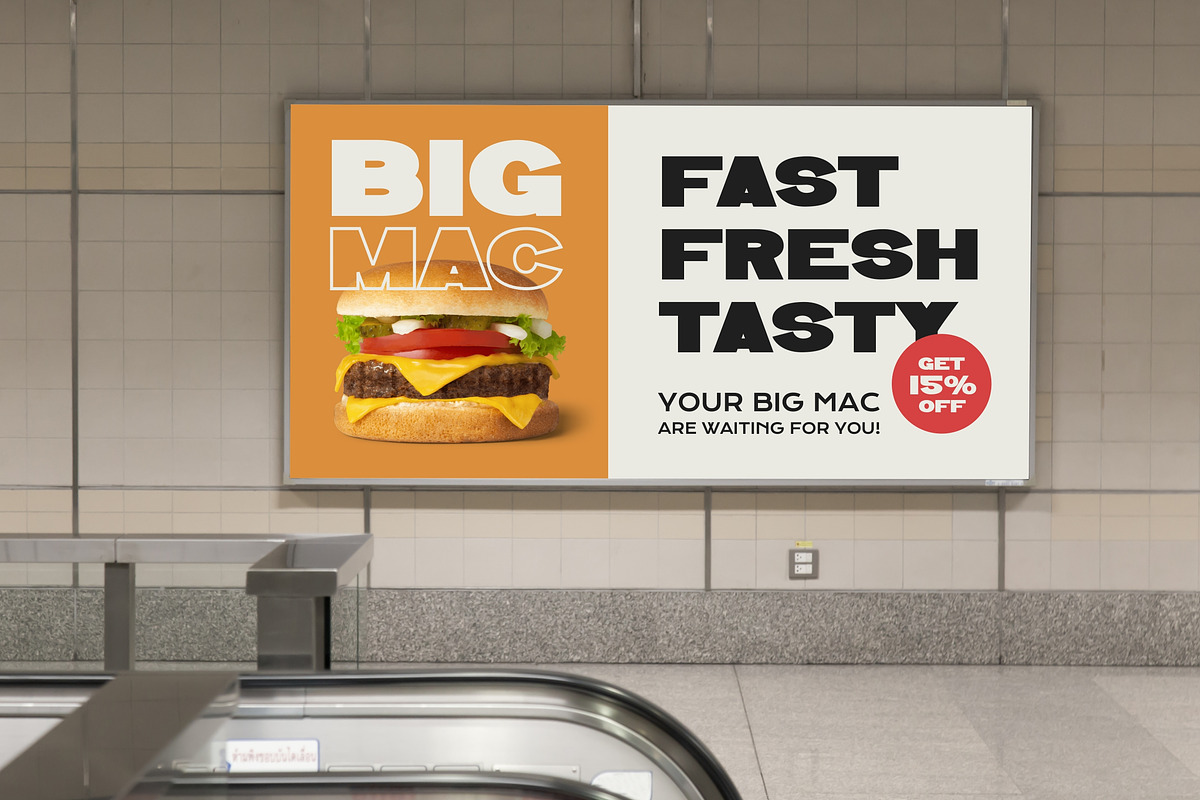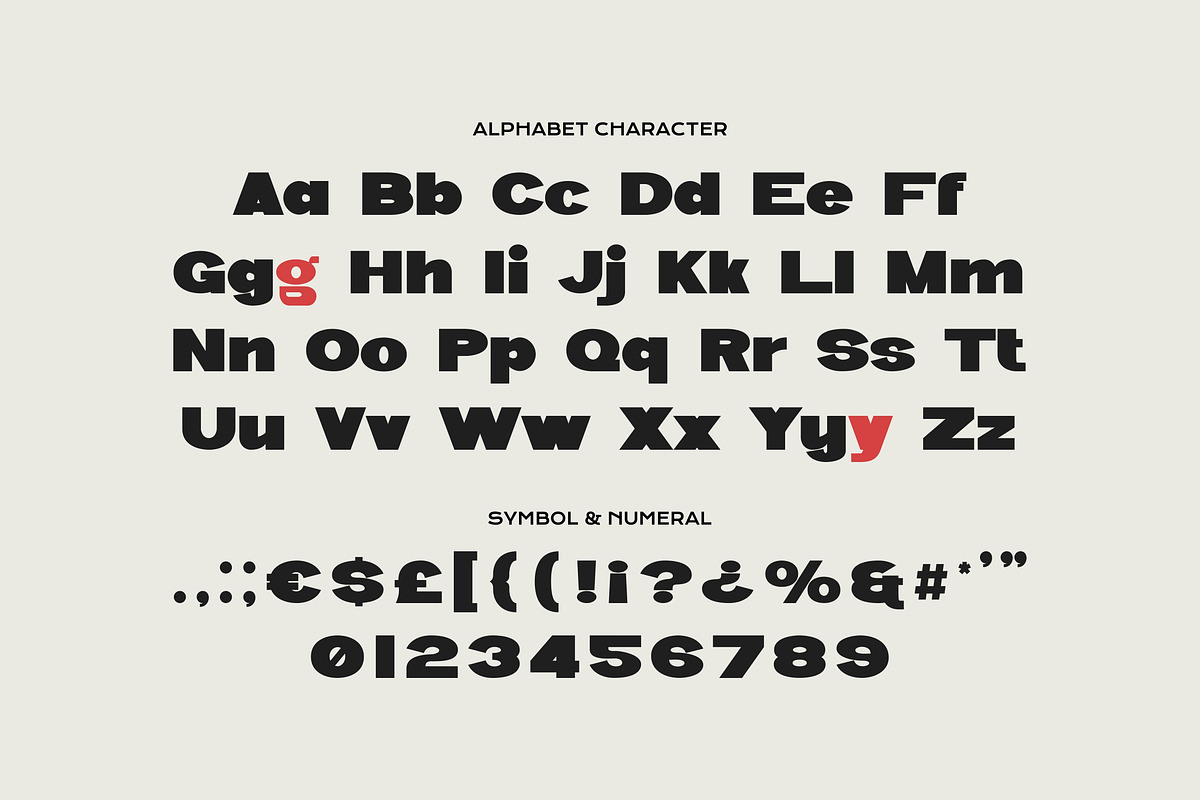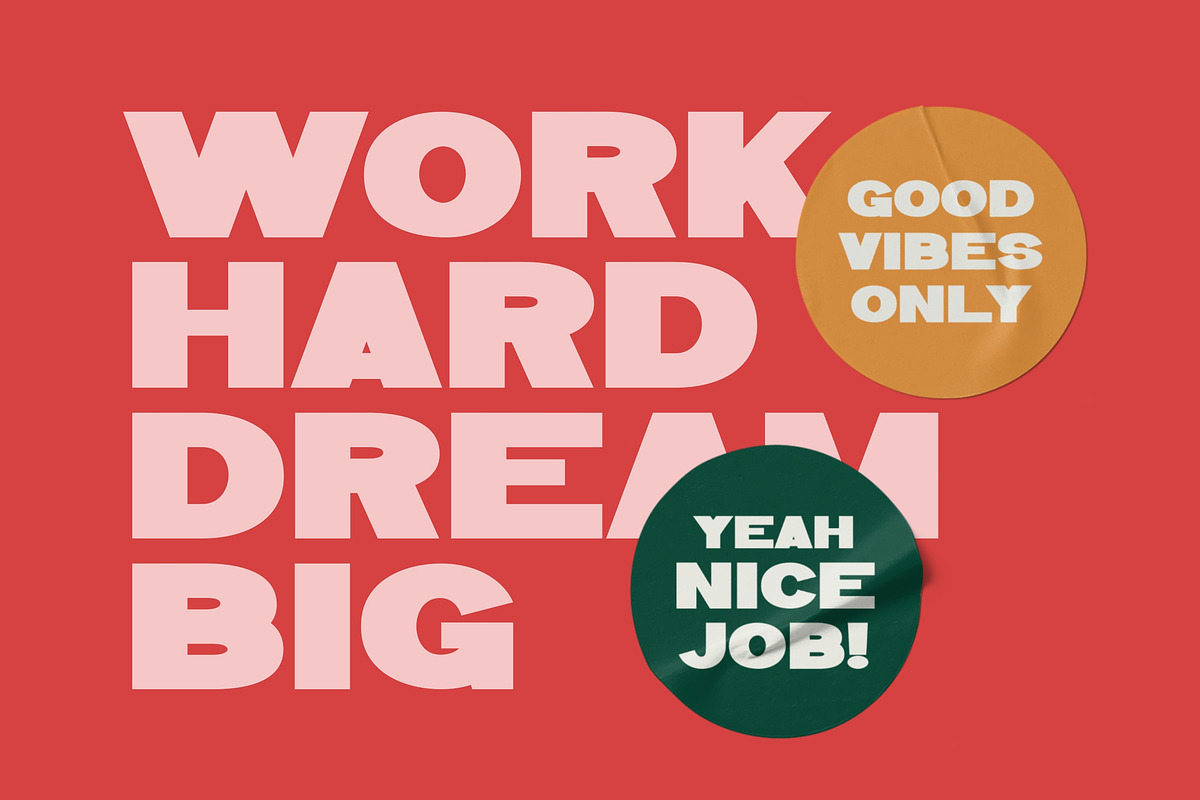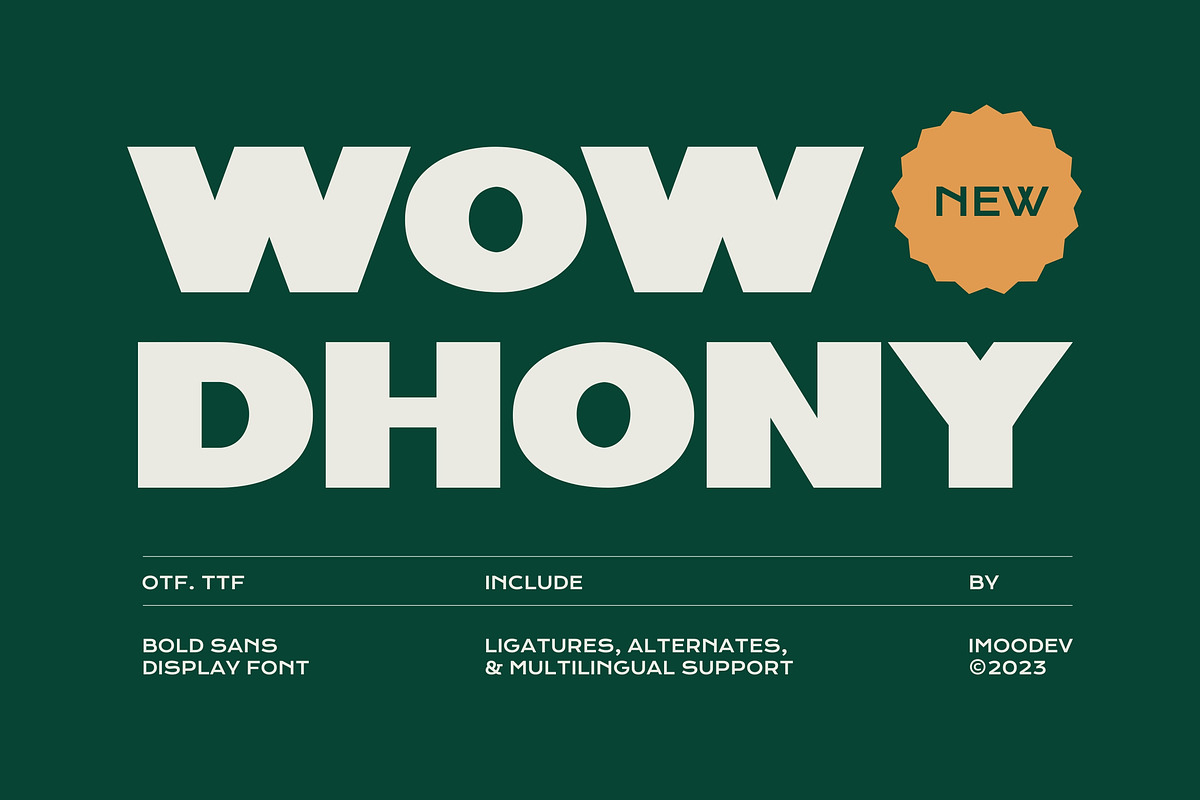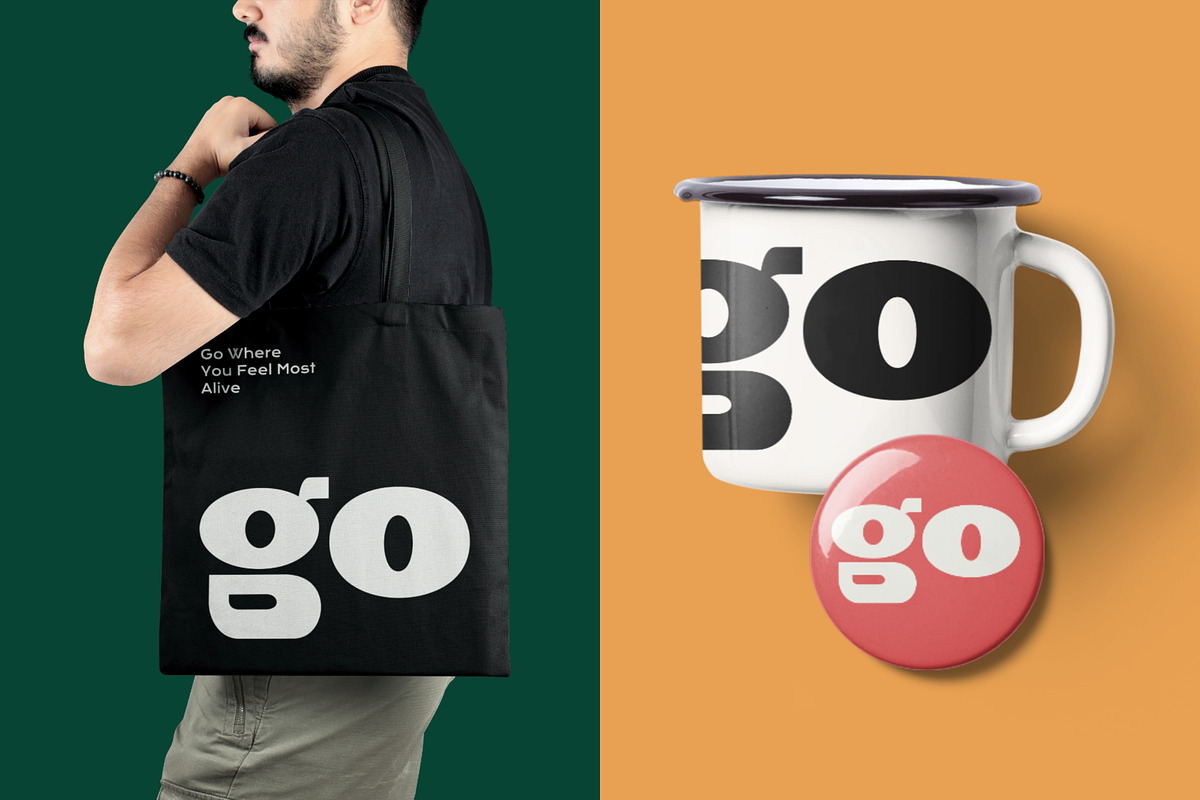
Wow Dhony - Bold Geometric Sans
Wow Dhony is a bold geometric sans serif font with a strong and wide. Its heavy weight and tight spacing command attention, making it ideal for impactful headlines and display uses.
Perfect for branding, posters, advertisements, sports branding, team jerseys, event posters, billboards, packaging, digital banners, and even adrenaline-fueled social media graphics.